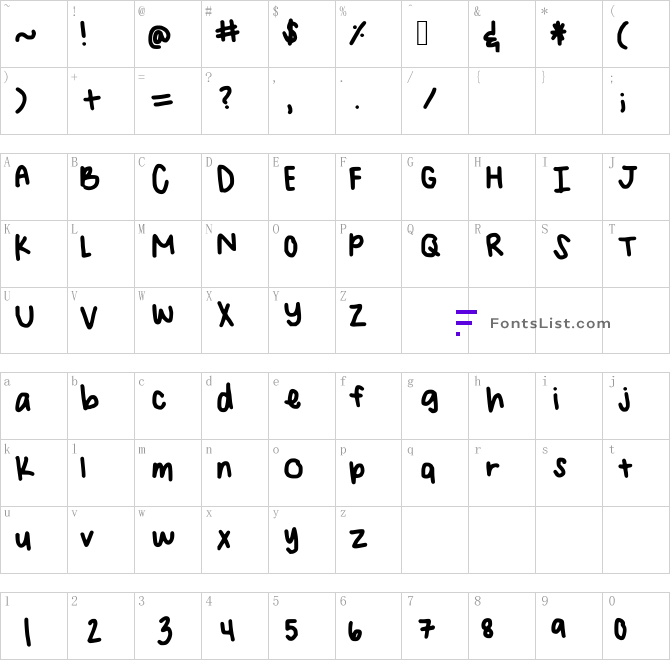
- Font Name:AngelinaHandwriting
AngelinaHandwriting.ttf is a very beautiful artistic font, AngelinaHandwriting.ttf is widely used in the design and printing of various books and pictures,AngelinaHandwriting.ttf has a strong visual impact,AngelinaHandwriting.ttf is a commonly used font in newspapers, magazines and books, and is used in posters, e-commerce Poster design, store design, logo design, font design and other fields.AngelinaHandwriting.